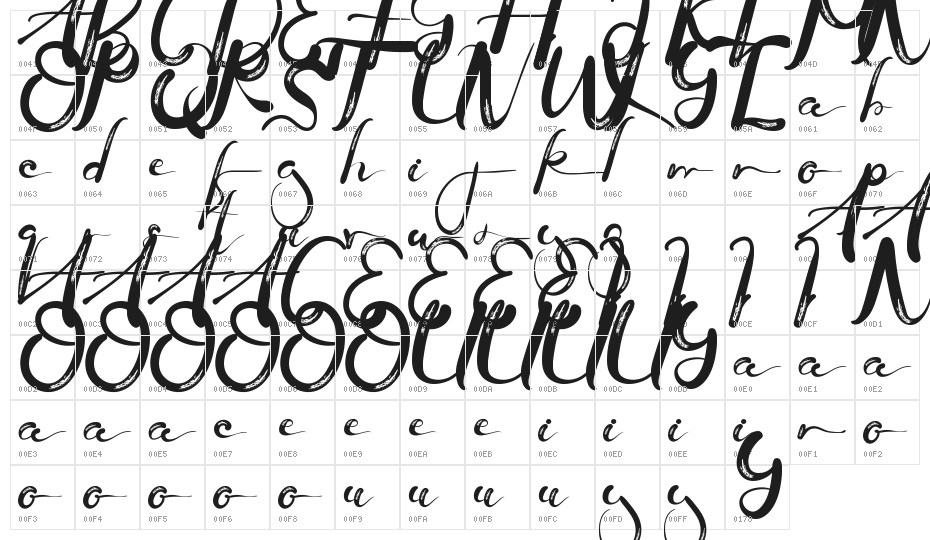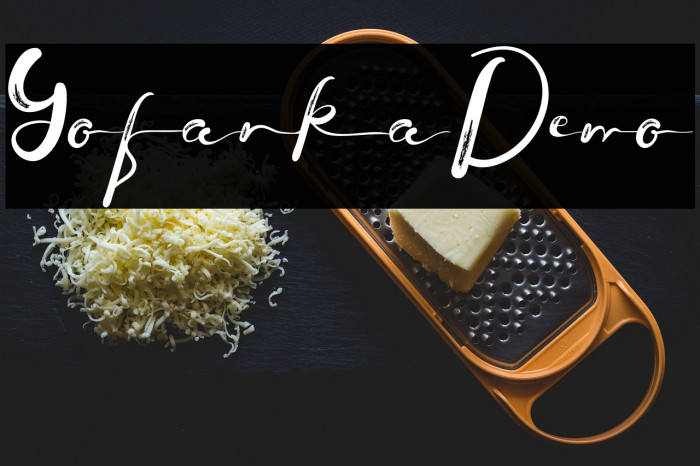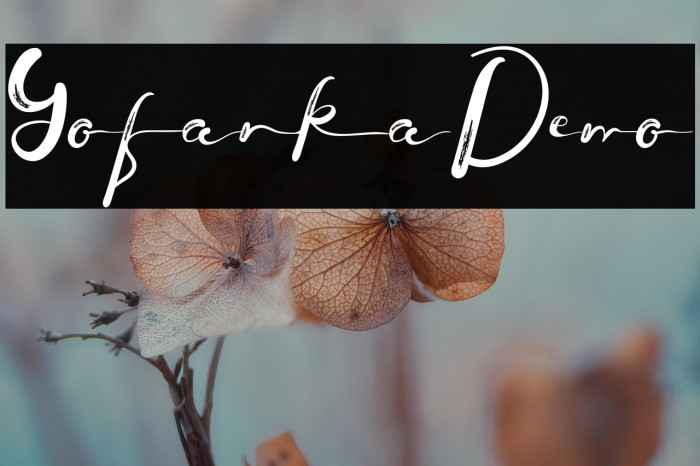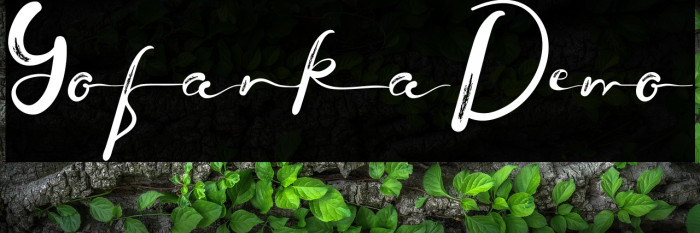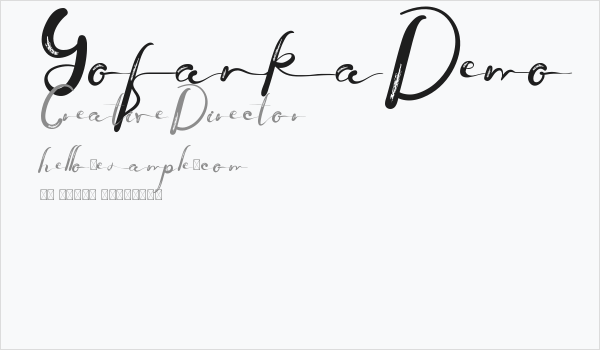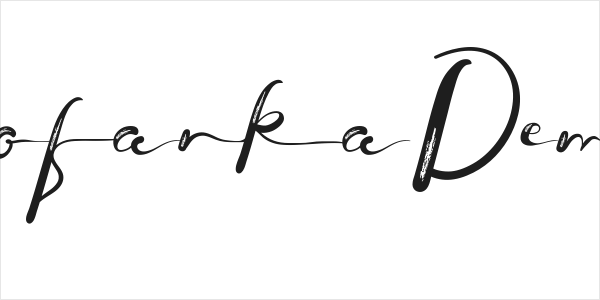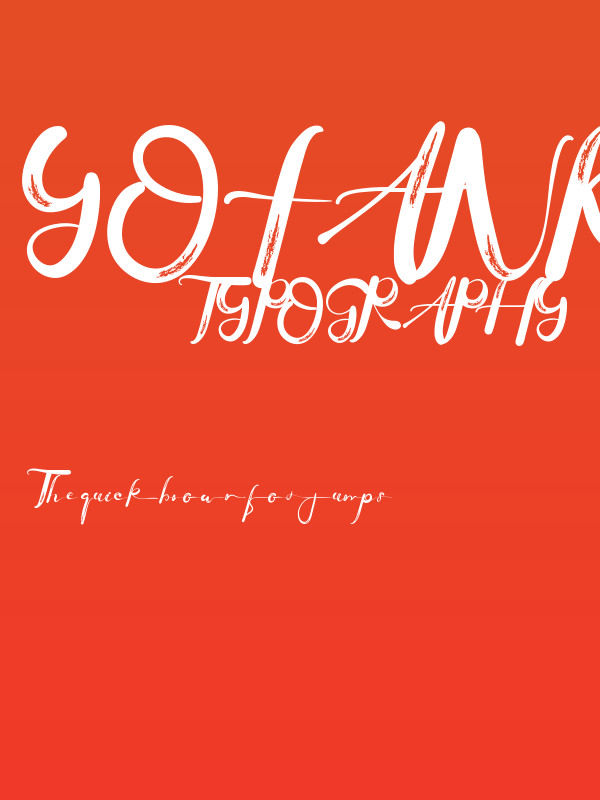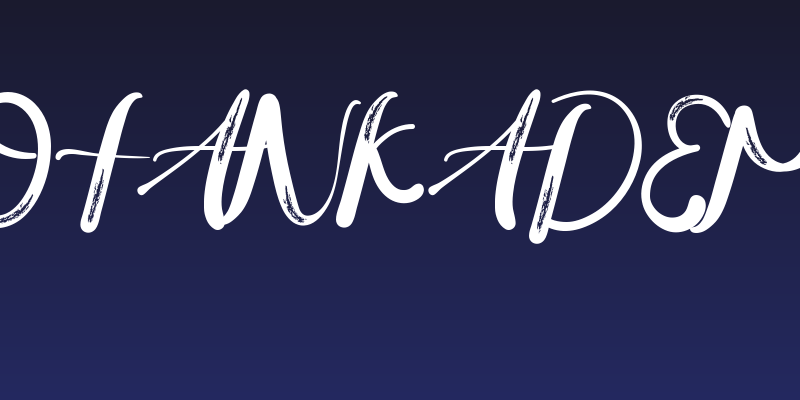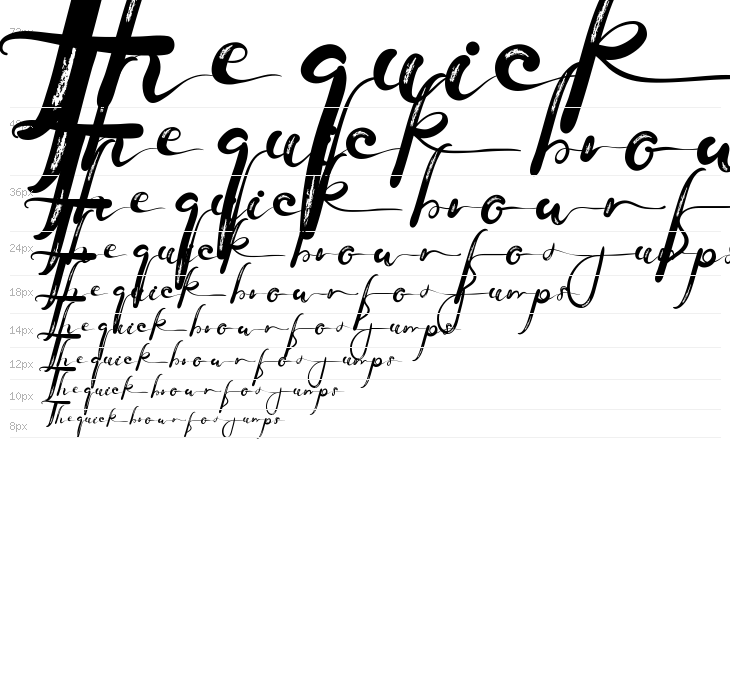
Yofanka Demo Font
Yofanka Demo Description
This font features an elegant and expressive script style, characterized by its fluid, sweeping strokes and artistic flair. The uppercase letters are bold and dynamic, with a sense of movement and energy, while the lowercase letters maintain a graceful continuity, often connecting in a cursive manner. The font exhibits a hand-drawn quality, with varying stroke widths that add a touch of sophistication and charm. The overall appearance is both modern and artistic, making it suitable for creative and decorative applications. The absence of uniformity in the strokes gives it a unique, personalized feel, ideal for projects that require a touch of individuality and style.
| Overall Style | Modern, Artistic |
| Use Case | Logos, Decorative text, Invitations |
| Proposed Projects | Ideal for wedding invitations, branding, logos, greeting cards, and artistic projects. |